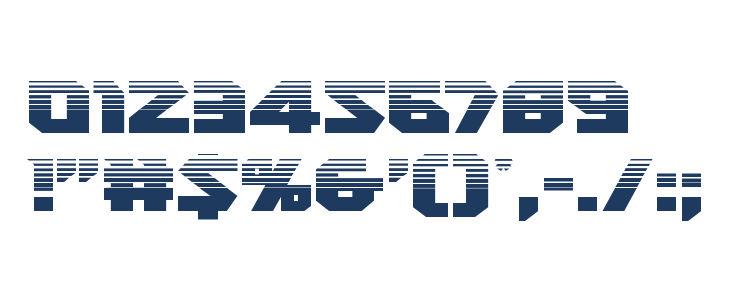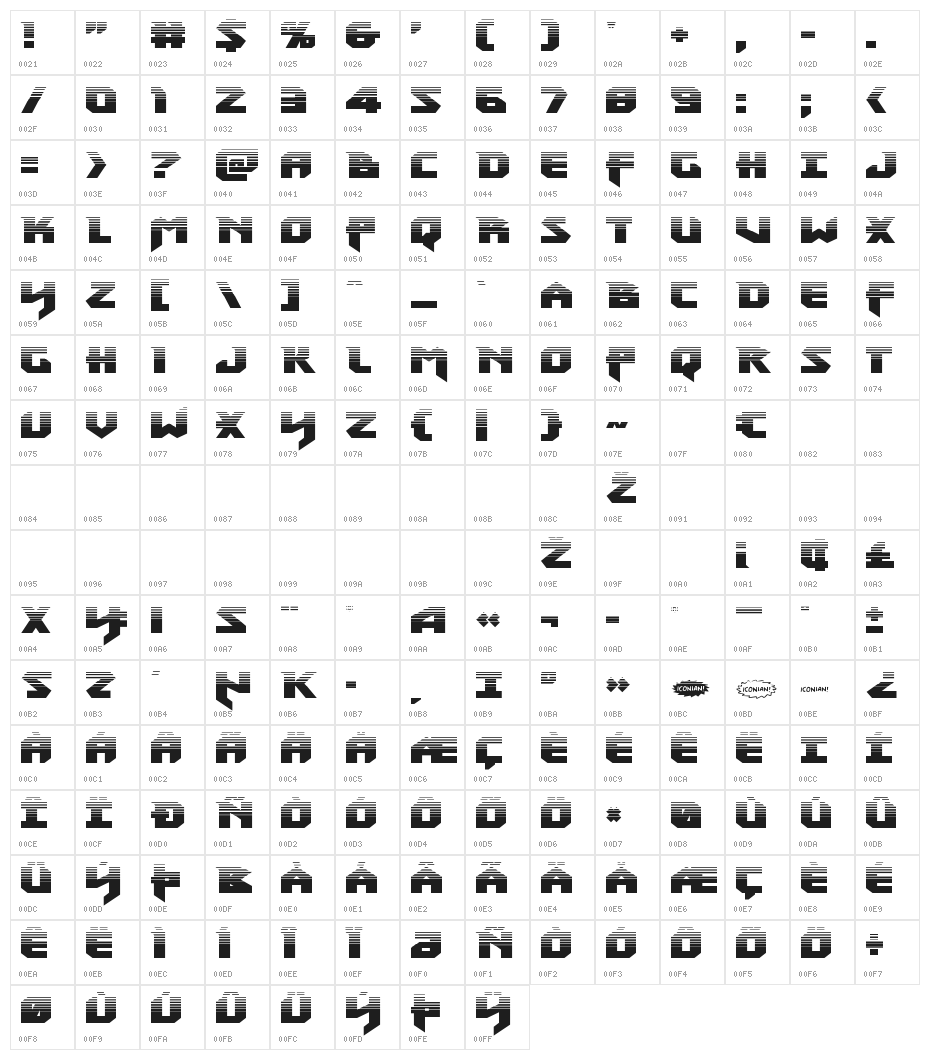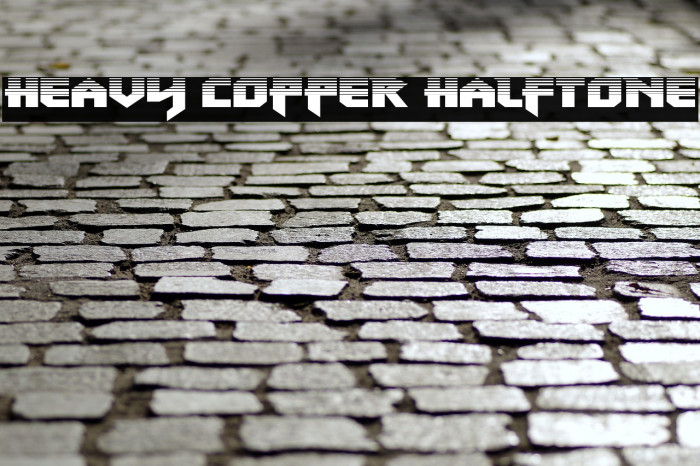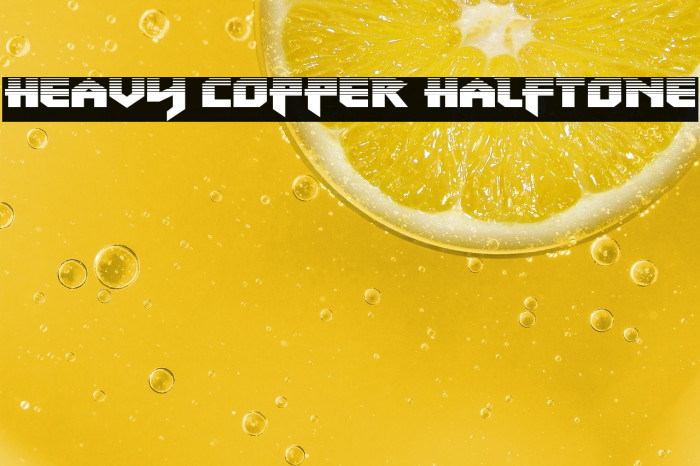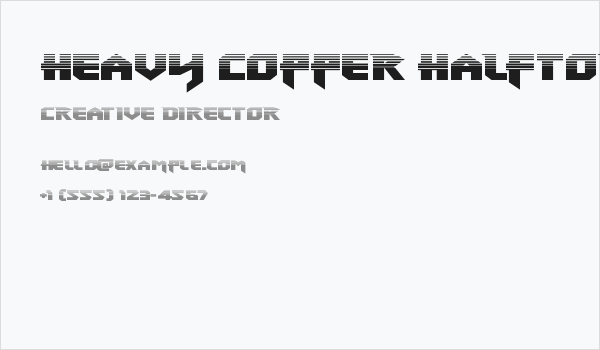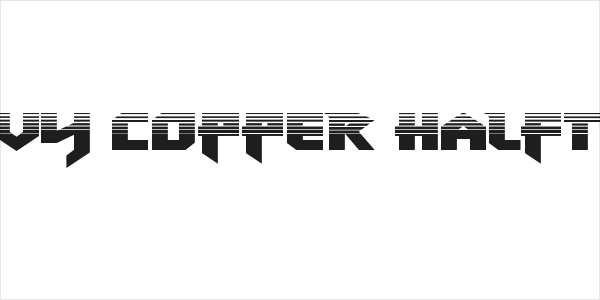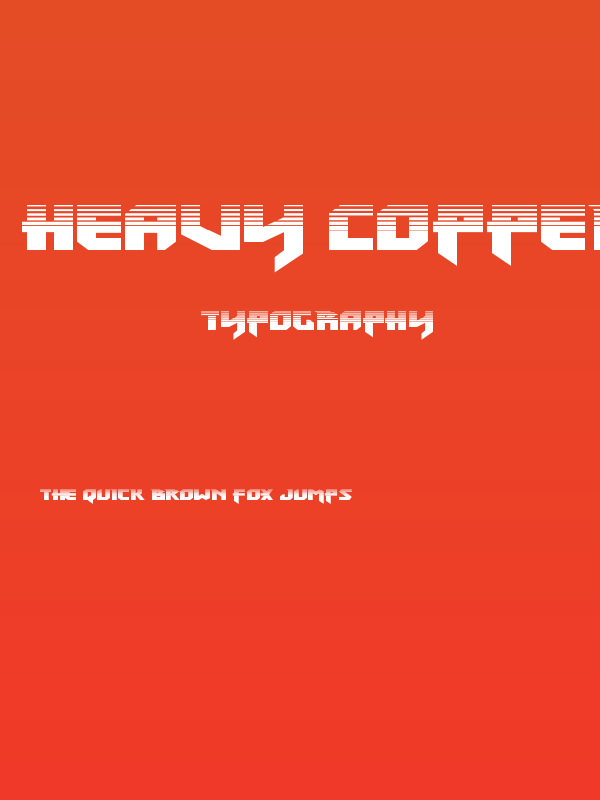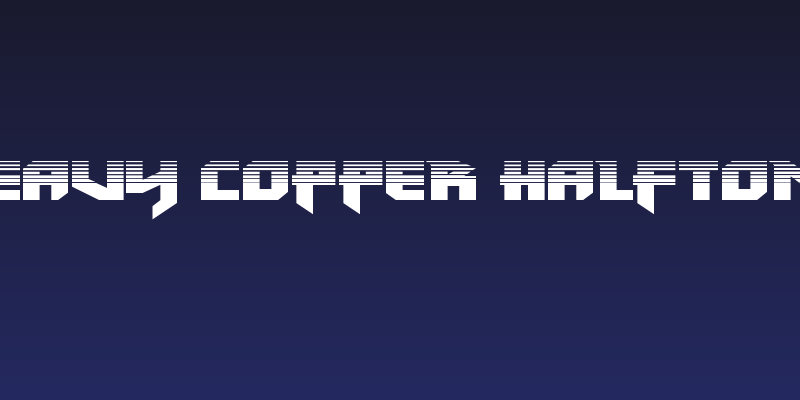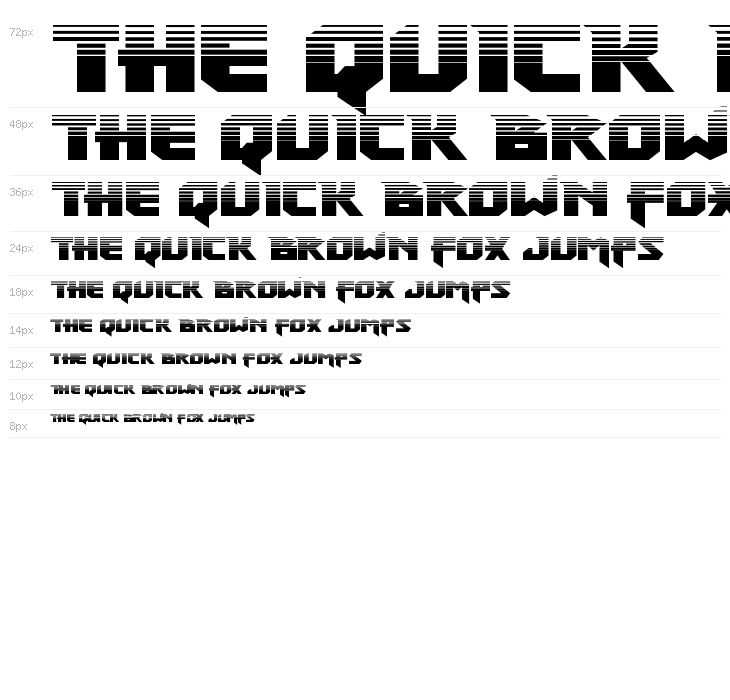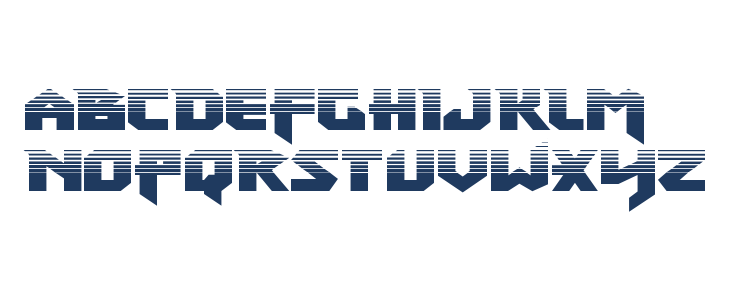
Heavy Copper Halftone Font
Heavy Copper Halftone Description
This font features a bold, geometric design with a distinctive halftone effect. The characters are constructed with horizontal lines that create a sense of depth and movement. The angular shapes and sharp edges give it a futuristic and industrial feel, making it stand out in any design. The uppercase letters are particularly striking, with a consistent pattern that runs through each character, while the numbers and special characters maintain the same bold aesthetic. This font is perfect for projects that require a modern, edgy look.
| Proposed Projects | Ideal for branding, posters, album covers, and any design needing a modern, edgy touch. |